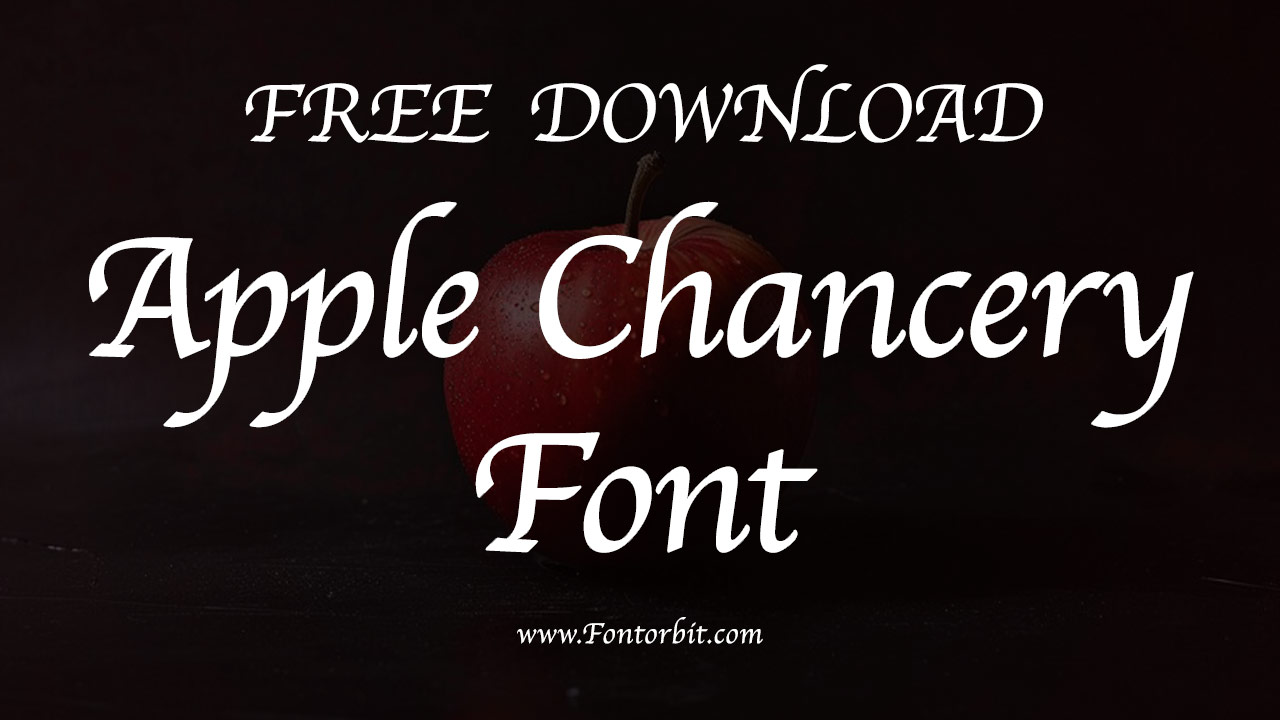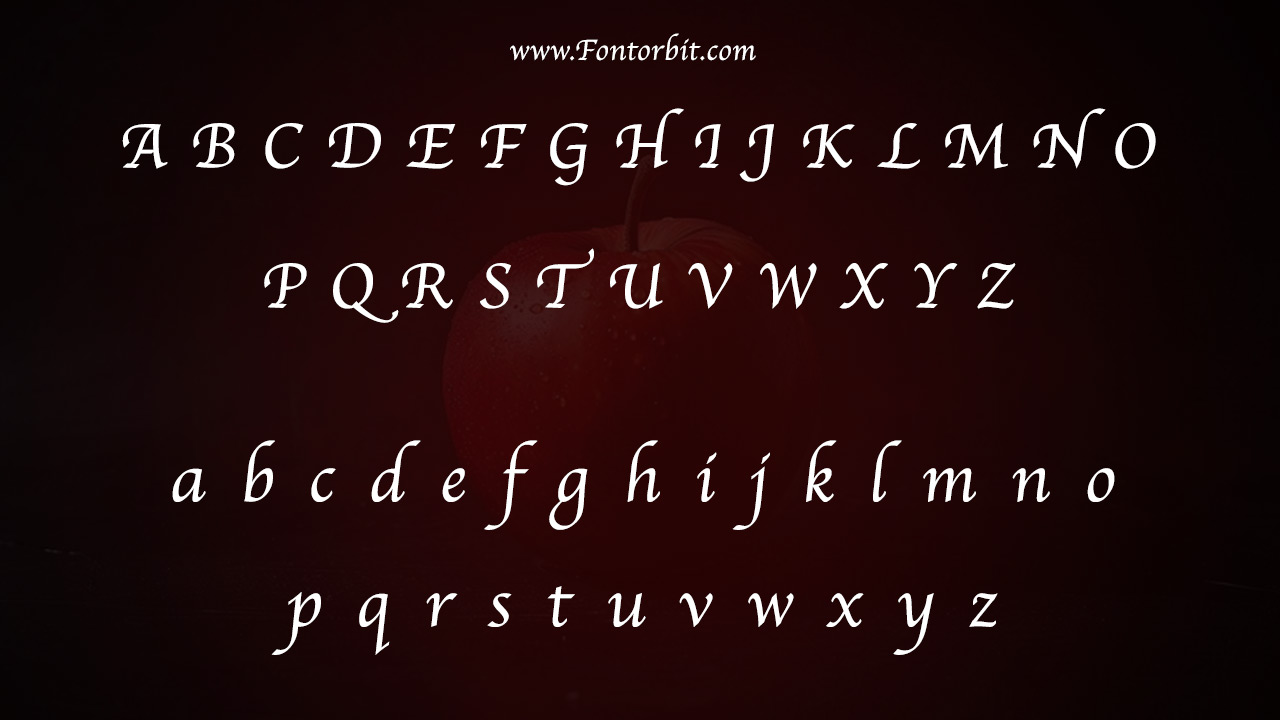
Apple Chancery Font is an elegant script typeface designed by Apple, known for its classic charm and graceful curves. Bundled with Apple’s operating system, this font captures the essence of chancery handwriting, making it a timeless choice for various design applications.
Apple Chancery falls into the category of script typefaces, drawing inspiration from traditional chancery cursives. It features unconnected letters, giving it a fluid and sophisticated look. The font family includes:
Apple Chancery Font is perfect for adding a touch of elegance to a wide range of projects. Its refined design makes it well-suited for:
- Greeting cards
- Elegant headlines
- Wedding Stationery
- Artistic text overlays
The Apple Chancery Font Found In Use
Apple Chancery is widely used in creative projects requiring a sophisticated and timeless typeface. Its graceful style works exceptionally well in formal contexts, enhancing the visual appeal of any design. The font is readily available as part of the Apple ecosystem.
Apple Chancery Font is a refined script typeface that adds elegance to a variety of creative uses. It’s ideal for enhancing invitations, branding materials, and artistic projects. Whether for personal or commercial use, Apple Chancery offers a sophisticated touch that elevates your work.
1.What Are The Characteristics Of Apple Chancery Font?
Apple Chancery features a classical chancery design with unconnected letters, a smaller x-height, and a more subtle slant compared to similar fonts.
2.What Are The Considerations For Using Apple Chancery Font In Branding?
Ensure the font aligns with your brand’s sophisticated aesthetic. Apple Chancery is perfect for brands looking for a touch of elegance but may not suit modern or casual themes.
3.What Are The Limitations Of Using Apple Chancery Font In Design?
Its script style may not be suitable for designs requiring clarity or strong legibility, particularly in smaller sizes.
4.What Sets Apple Chancery Font Apart From Other Script Fonts?
Apple Chancery’s classical inspiration and unique letterforms offer a refined look that distinguishes it from more casual script fonts.
5.What Do You Want From An Apple Chancery Font?
Users typically seek an elegant, sophisticated typeface that enhances the beauty of various design projects.
6.How To Create A Calligraphic Effect With Apple Chancery Font?
Pair it with decorative elements or use it in conjunction with traditional design motifs to enhance its calligraphic charm.
7.What Styles Are Popular In Apple Chancery Fonts?
Elegant, classical, and script styles are popular, providing a timeless and sophisticated look for various design applications.